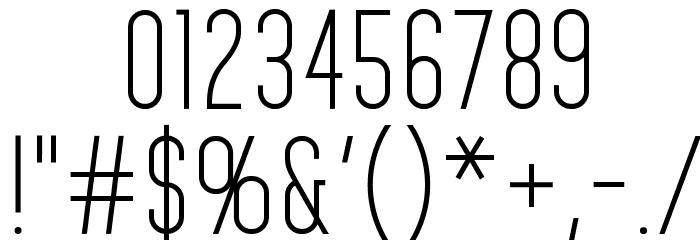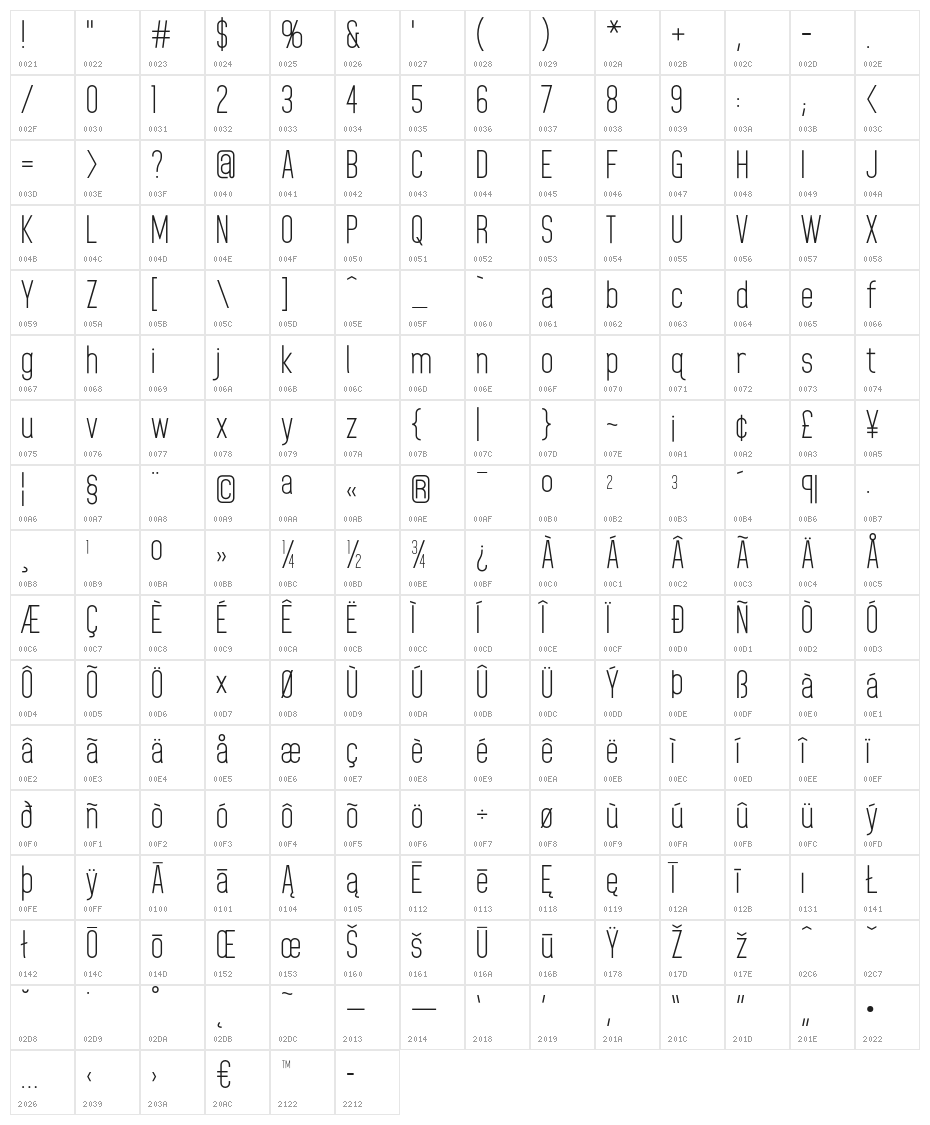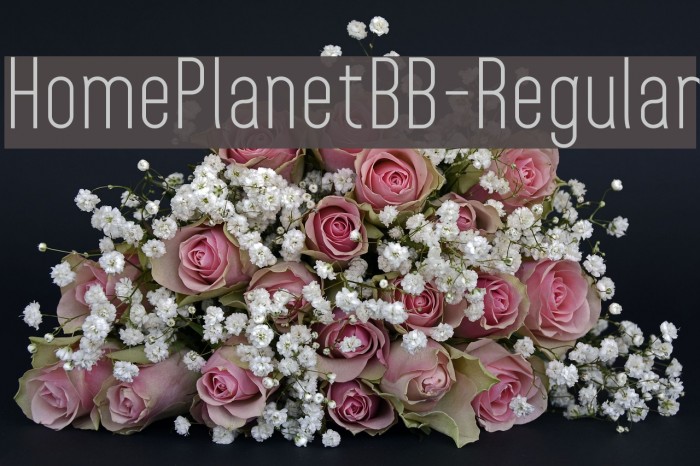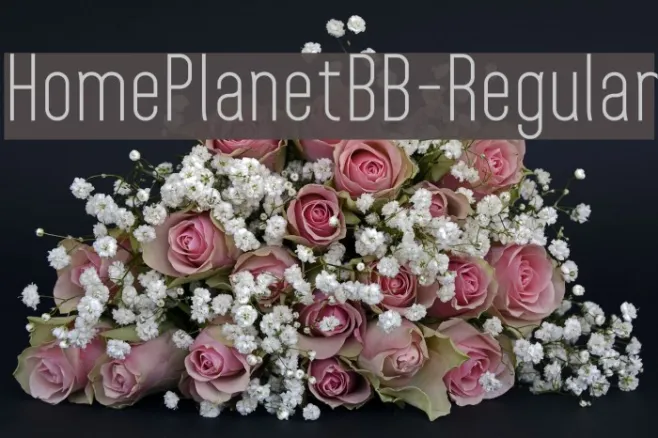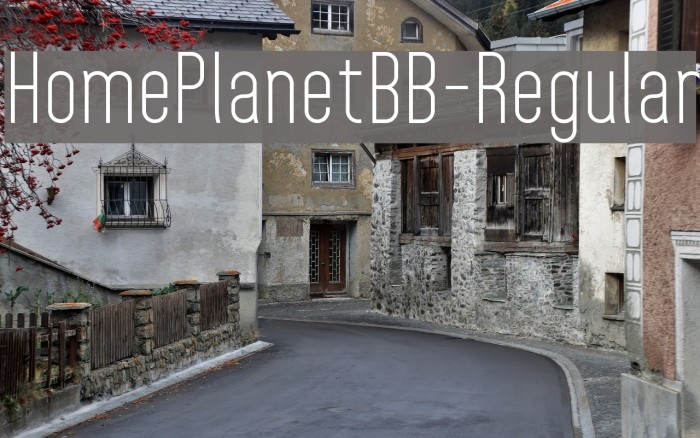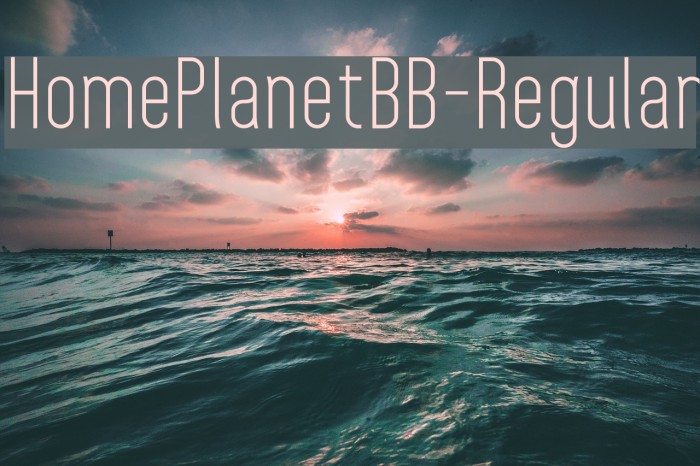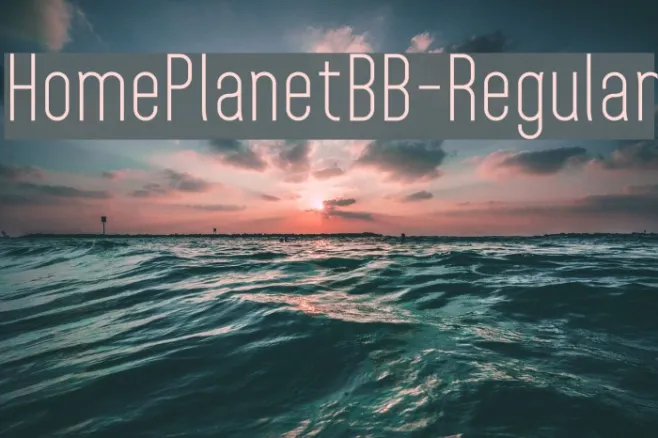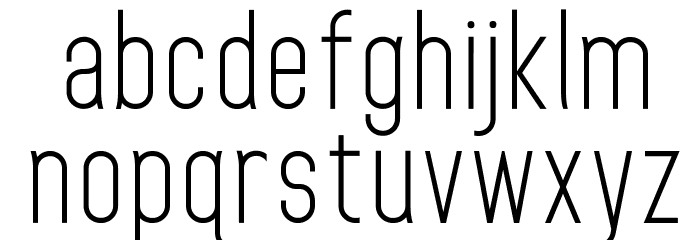
HomePlanetBB-Regular Font
HomePlanetBB-Regular Description
This font features a clean and modern sans-serif style with a geometric structure. The characters are tall and narrow, giving a sleek and elegant appearance. The uppercase letters are uniform in height, while the lowercase letters maintain a consistent baseline with slight variations in ascender and descender lengths. The numerals are proportional and align well with the overall design. Special characters are included, maintaining the same minimalist aesthetic. The font's simplicity and clarity make it highly legible, suitable for various design applications.
| Proposed Projects | Ideal for branding, editorial design, web design, and advertising where a clean and modern look is desired. |